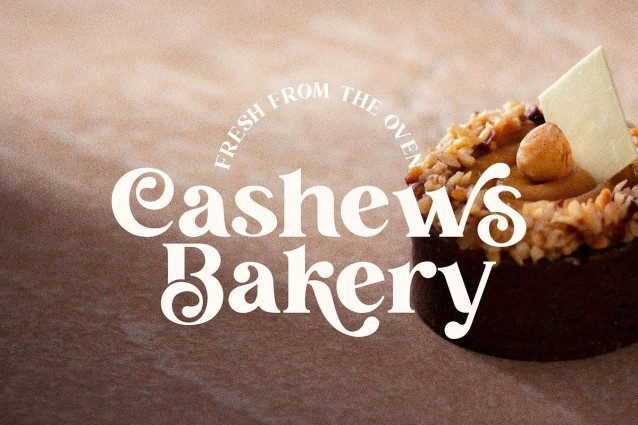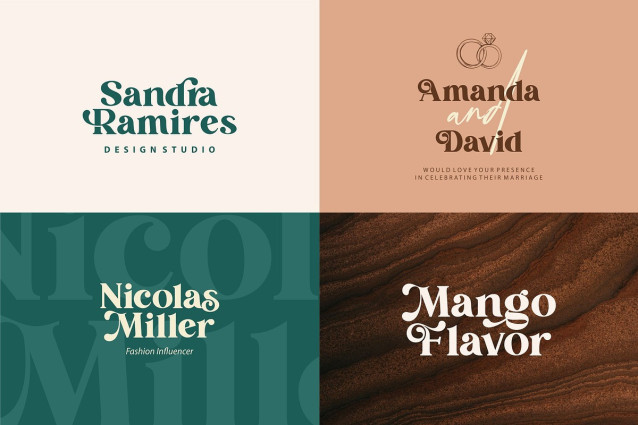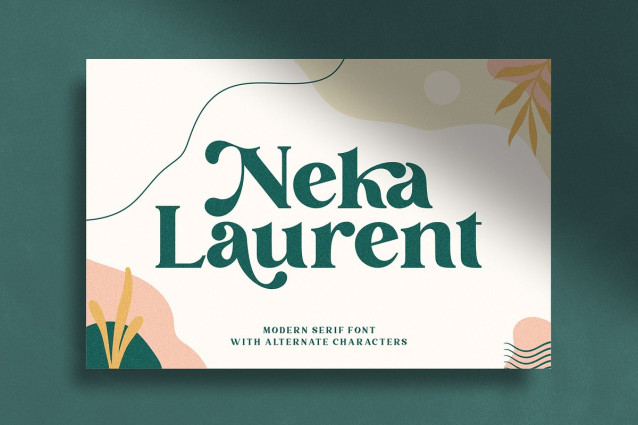
Neka Laurent Font
Neka Laurent fonts equipped with various alternative characters that make this font look beautiful. Make this font look sweet and classy very good for your work such as logos, brands, packaging, posters, invitations, instastories, and your ad needs